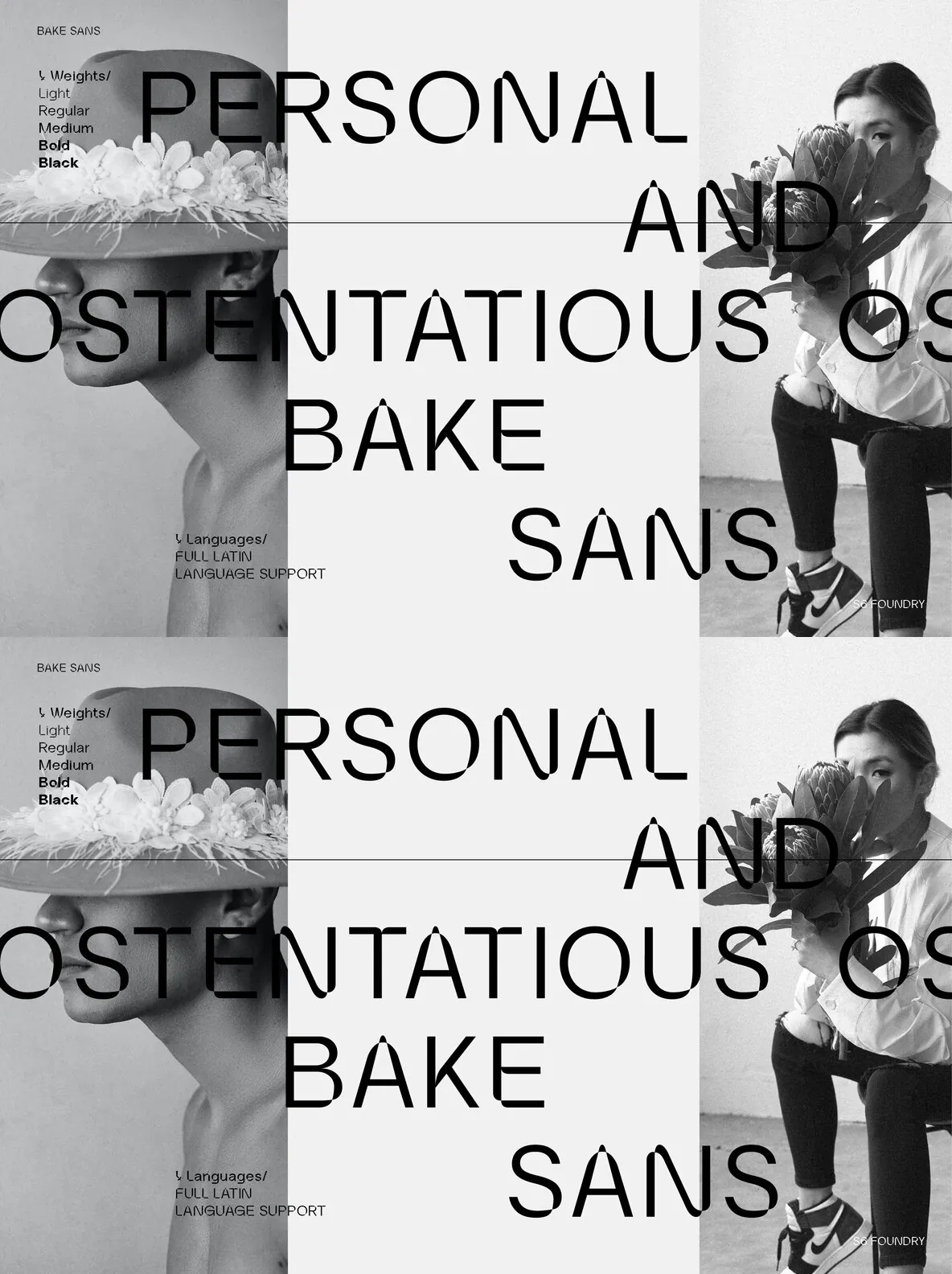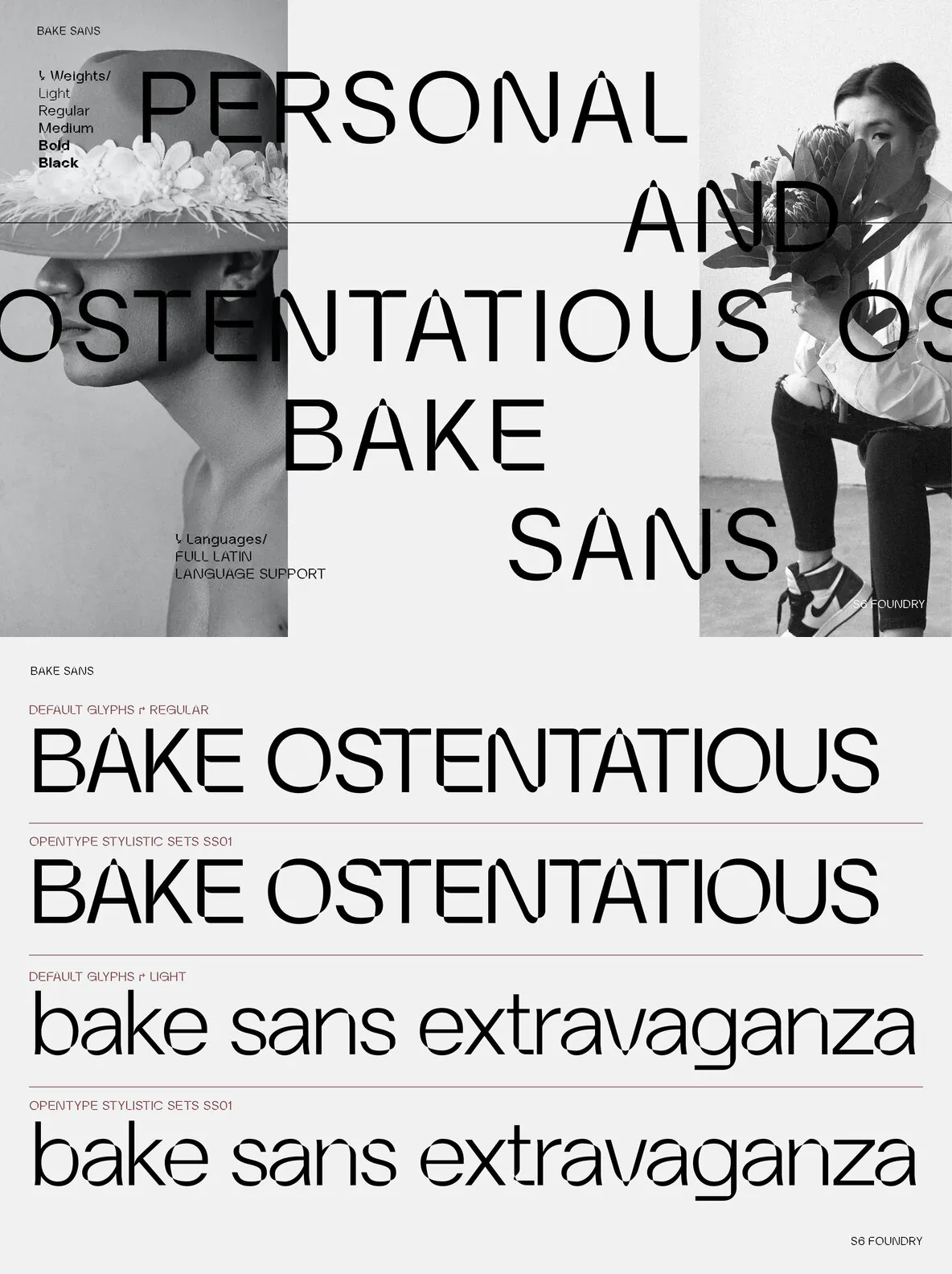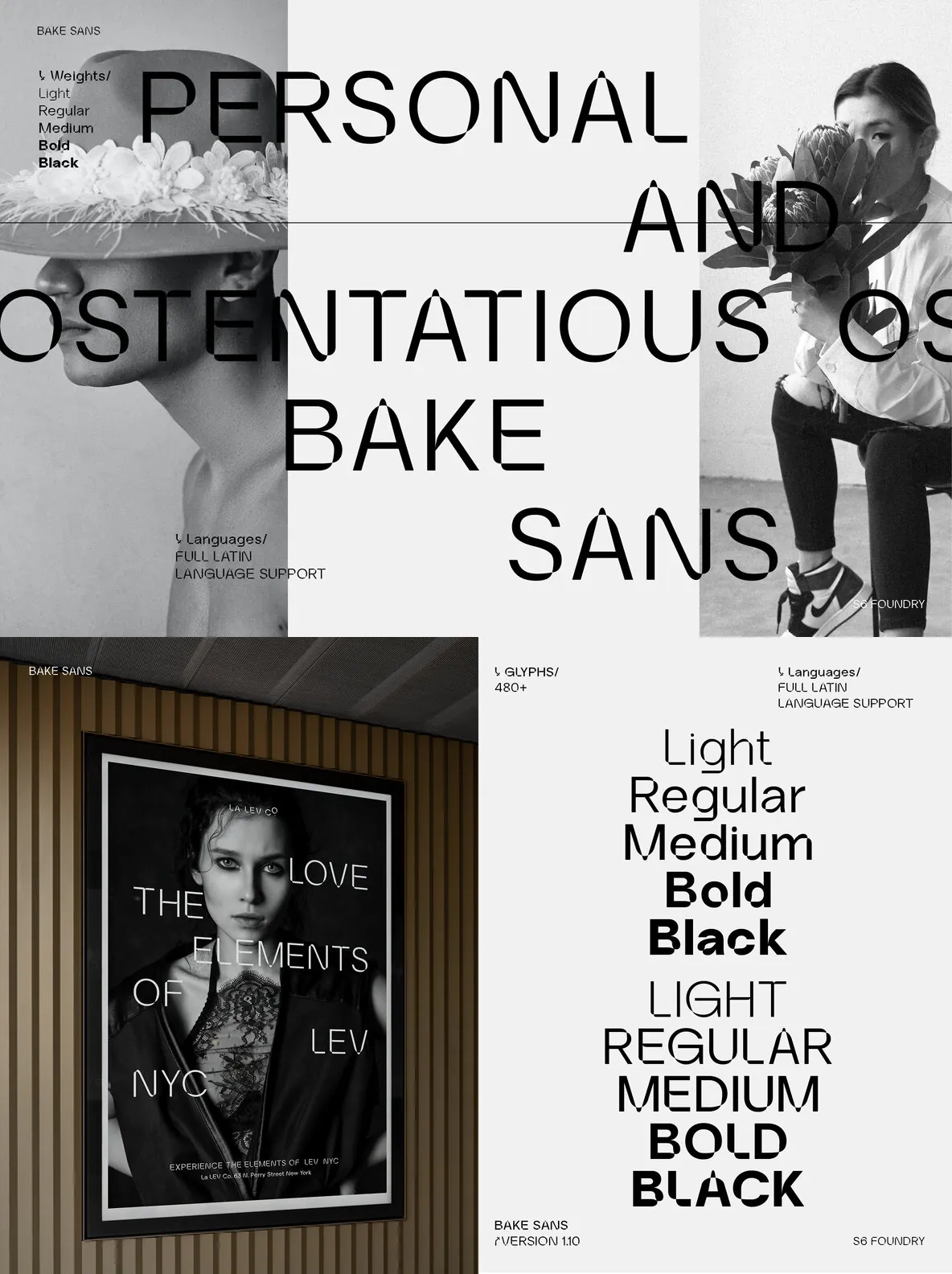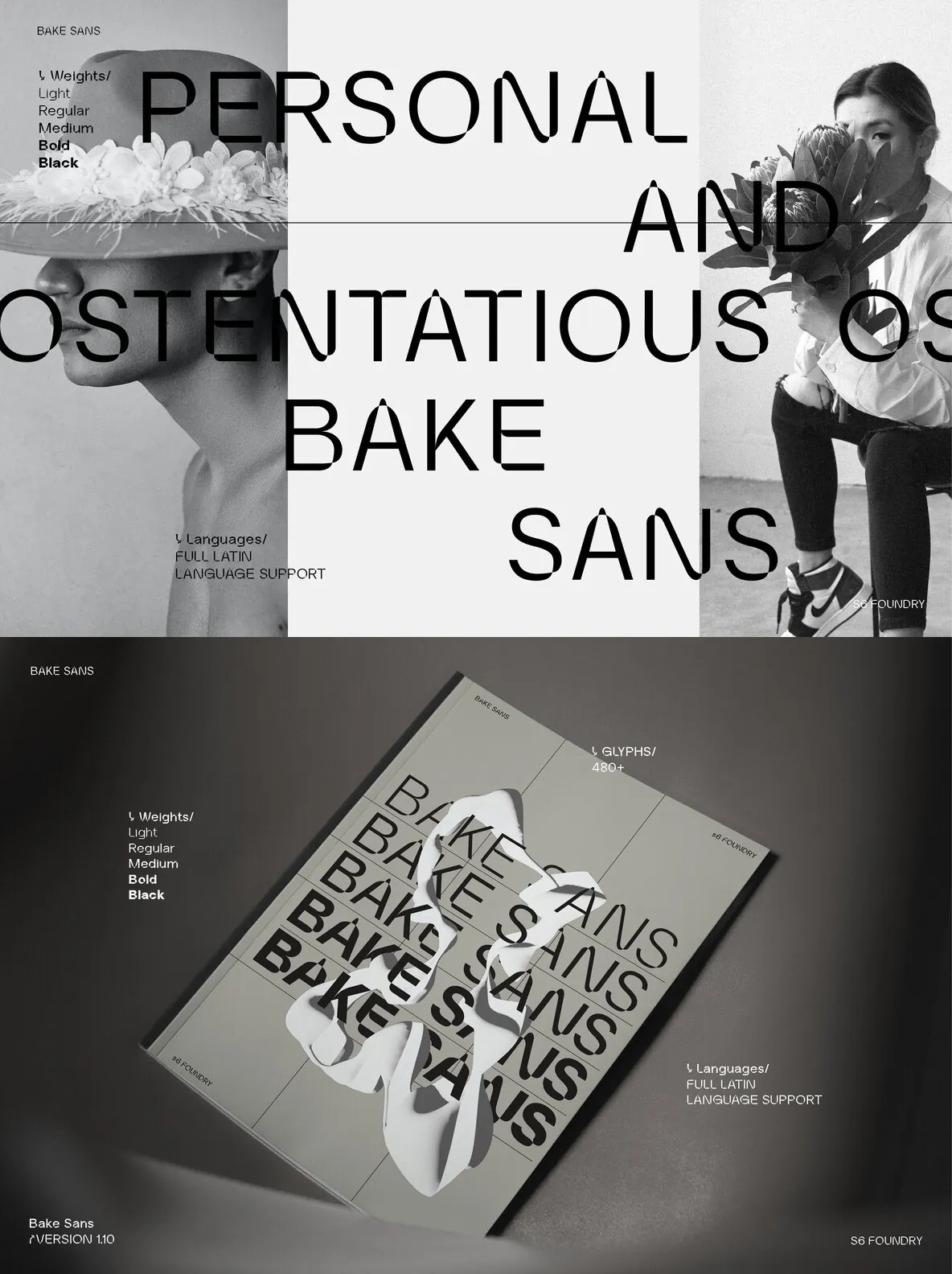
Bake Sans — Personality, Set in Type
Bake Sans is a captivating contemporary typeface with clear style and personality. It uses modern, distinctive shapes and curves that read confidently across a wide range of design contexts. The result is a consistent typographic voice that supports brand systems and day-to-day communication without feeling generic.
Use Bake Sans when you need visual consistency that holds up across touchpoints. It fits naturally in logos, websites, and marketing materials, where character matters as much as clarity. Bake Sans brings a memorable tone to your layouts while staying focused on practical, brand-ready typography.